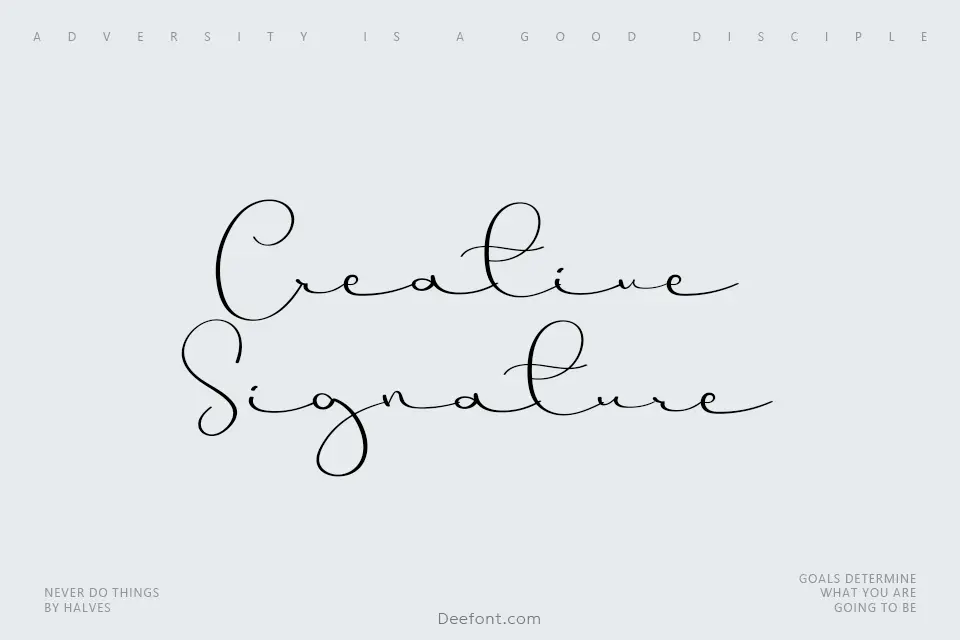
Creative Signature Font
Creative Signature Font: Elegance in Handwritten Design
Creative Signature Font is a modern, handwritten typeface renowned for its elegant and feminine aesthetic, designed to emulate the fluidity of natural handwriting. Crafted with meticulous attention to detail, it combines graceful curves and dynamic strokes, offering a personalized touch ideal for branding, invitations, logos, and social media content. Its versatility extends to both digital and print mediums, ensuring readability while maintaining a sophisticated charm.